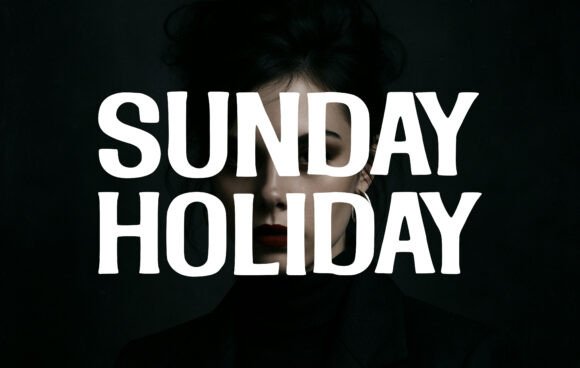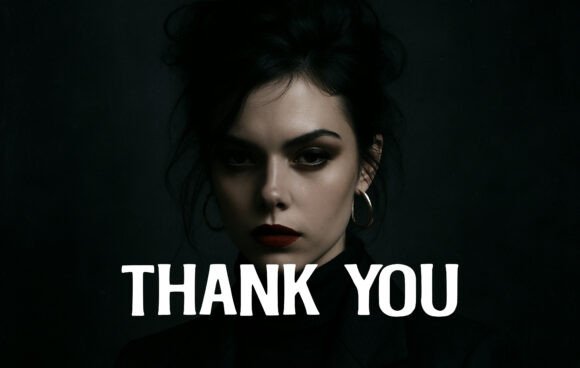
The Power of Bloom Bold: A Font that Packs a Punch
I’ll never forget the time I was working on a branding project for a fashion startup, and I was struggling to find the perfect font to capture their bold and playful personality. The client wanted something that would make a statement, but not feel too over-the-top or intimidating. After hours of scouring font libraries and testing out different options, I stumbled upon Bloom Bold – and it was love at first sight! 💕
With its confident character and handcrafted charm, Bloom Bold instantly resonated with the client’s vision. The font’s slightly uneven lines and organic curves give it a distinctly human touch, while its clean structure keeps it feeling fresh and modern. It’s the perfect combination of personality and polish.
An Honest Review of Bloom Bold
- ✨ Impactful yet approachable: Bloom Bold makes a statement without feeling too aggressive or in-your-face.
- ✅ Clean structure: The font’s underlying structure keeps it feeling organized and easy to read, even at larger sizes.
- 💪 Personality and power: Bloom Bold adds a boost of confidence and energy to any design, making it perfect for bold social media graphics, fashion campaigns, and standout packaging.
- 🤔 Limited use in body text: While Bloom Bold is amazing for headlines and titles, it’s not the best choice for longer blocks of text – it’s a display font at heart!
- ⚠️ Requires attention to spacing: As with any bold font, it’s essential to pay attention to spacing and kerning to ensure that Bloom Bold looks its best.
The Story Behind Bloom Bold
Bloom Bold was designed with the goal of creating a font that would make a statement without feeling too aggressive or intimidating. The designer, inspired by the organic curves and confident character of handcrafted typography, aimed to create a bold font that would add personality and power to any design. With its clean structure and slightly uneven lines, Bloom Bold strikes the perfect balance between polish and personality.
Q: What type of projects is Bloom Bold best suited for?
Bloom Bold is perfect for branding, editorial headlines, bold social media graphics, fashion campaigns, and standout packaging.
Q: Can I use Bloom Bold for body text?
While Bloom Bold is amazing for headlines and titles, it’s not the best choice for longer blocks of text. It’s a display font at heart!
Q: Is Bloom Bold suitable for digital and print projects?
Absolutely! Bloom Bold is designed to look great in both digital and print formats, making it a versatile choice for a wide range of design projects.